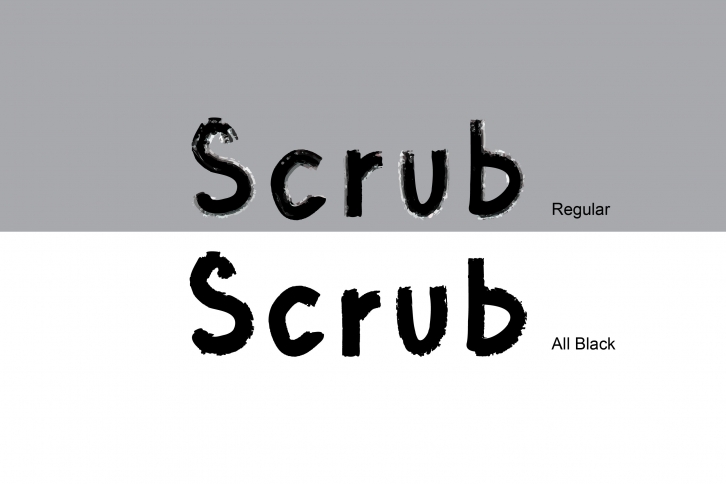
Scrub is a cool display font with an amazing artsy style. It is suitable for funny greeting cards, posters, social media, quotes on products like mugs or shirts, and more.